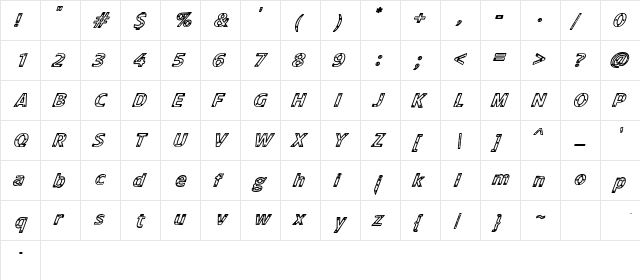
ScrewedFontSlantedDark Regular
Design Context for ScrewedFontSlantedDark Typeface
ScrewedFontSlantedDark takes a measured approach to typography — its balanced proportions and neutral character make it a reliable workhorse for both digital and print work. Its italic angle brings a sense of urgency and motion to the letterforms.
Pro Tip: Use ScrewedFontSlantedDark for emphasis, pull quotes, and subheadings where its slanted energy can add rhythm to the layout.